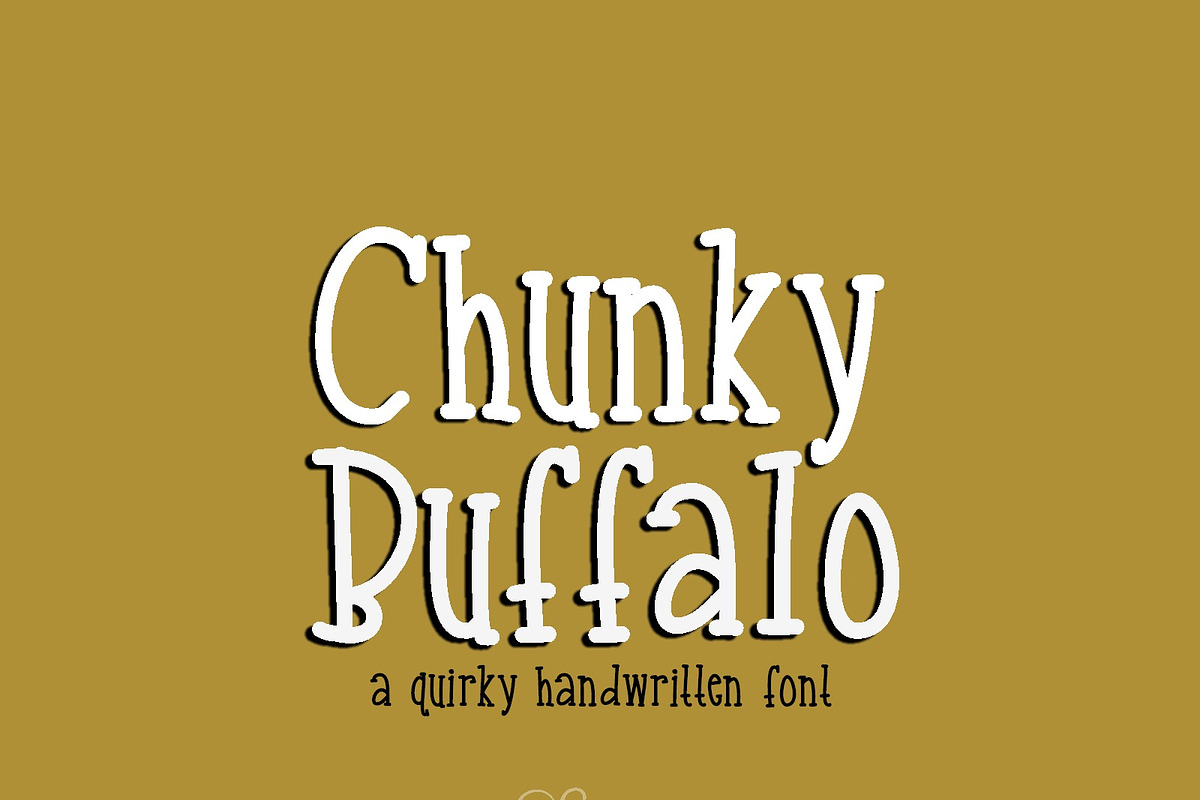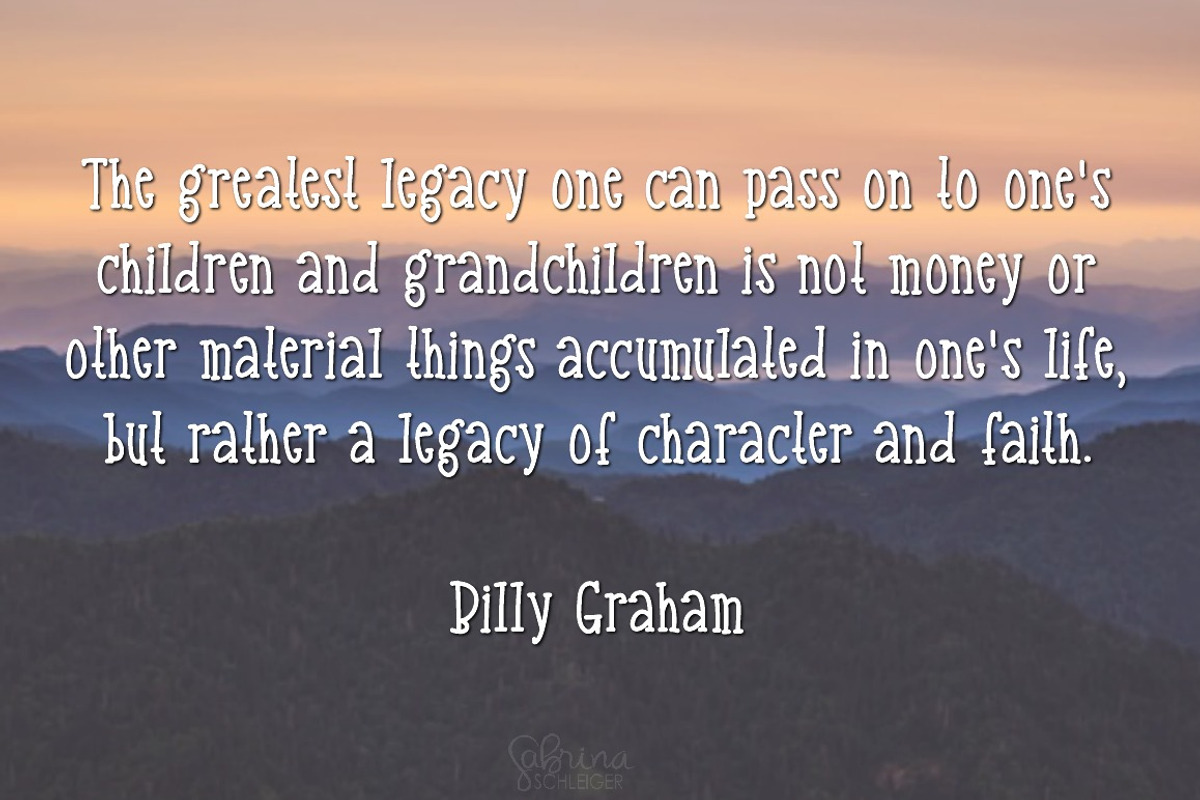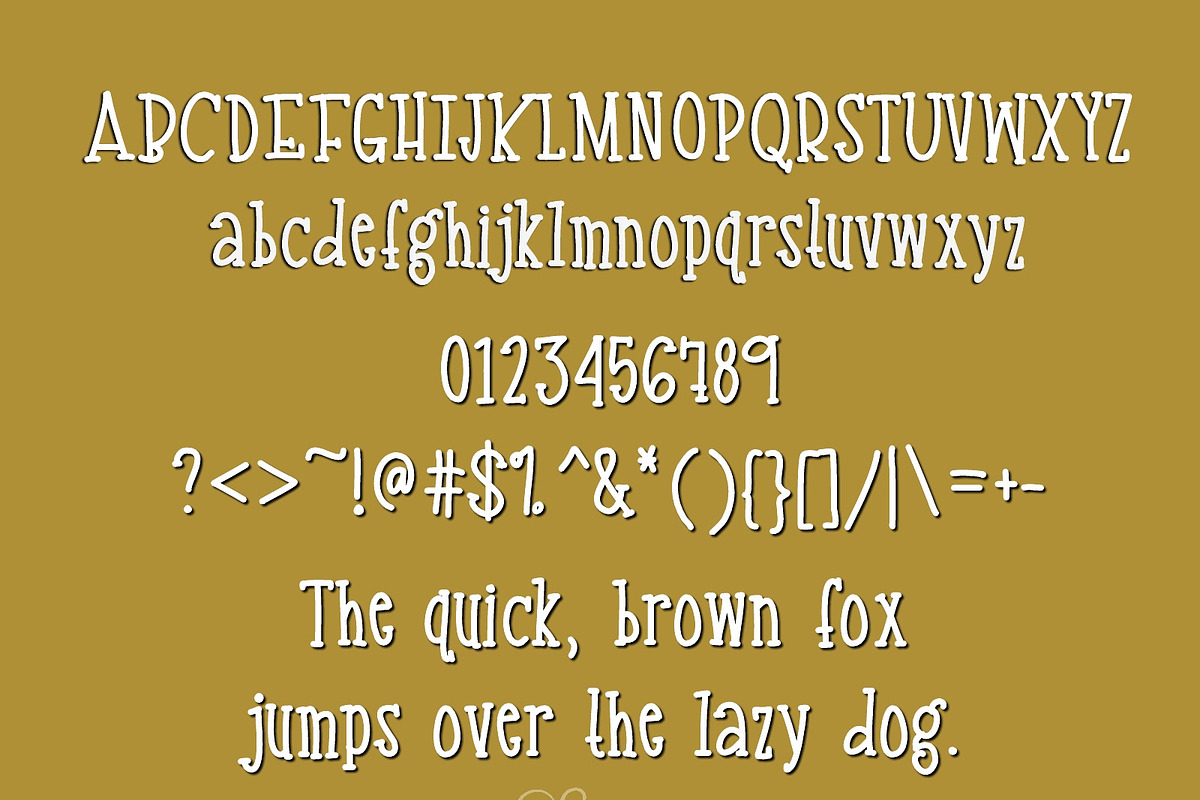
Chunky Buffalo- Handwritten Font
Chunky Buffalo- Handwritten Font by Sabrina Schleiger Design is a font selected for branding, posters, packaging, typography.
Why Chunky Buffalo- Handwritten Font is worth a look
Chunky Buffalo- Handwritten Font by Sabrina Schleiger Design fits naturally into Branding, posters, packaging, typography.